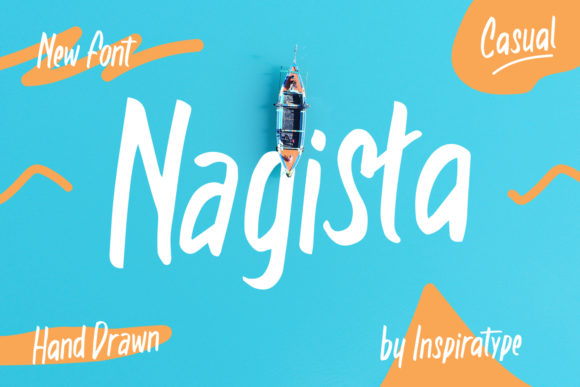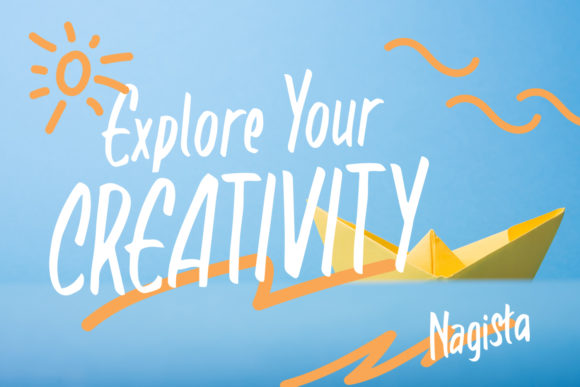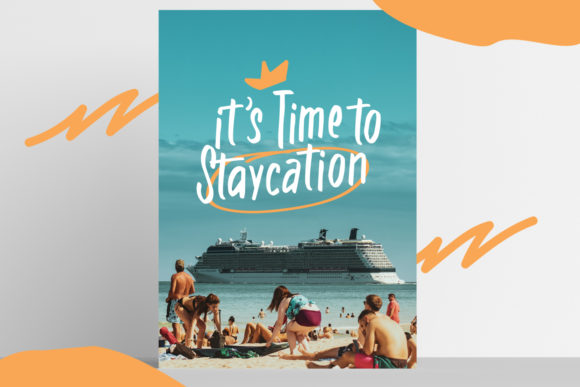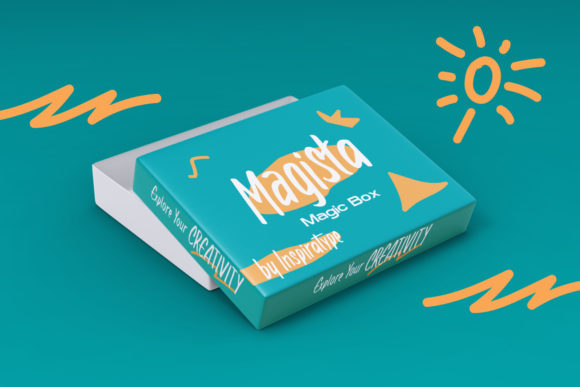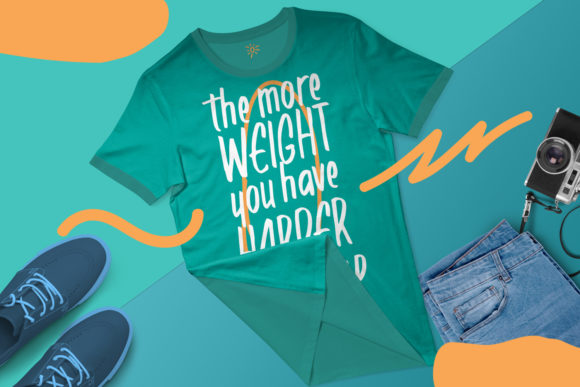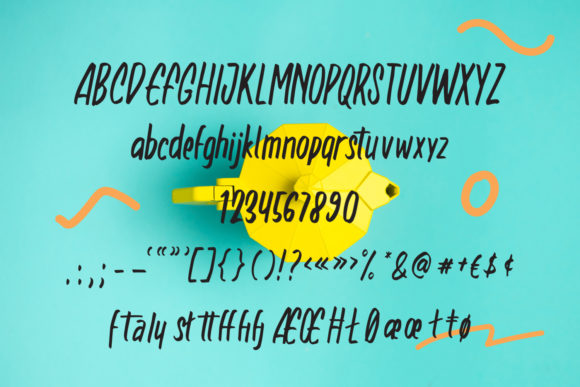
Nagista Font
About Nagista Font
Nagista is a flowing and elegant handwritten font, designed with the help of an outstanding brush pen. Fall in love with its incredibly distinct and timeless style and use it to create spectacular designs!